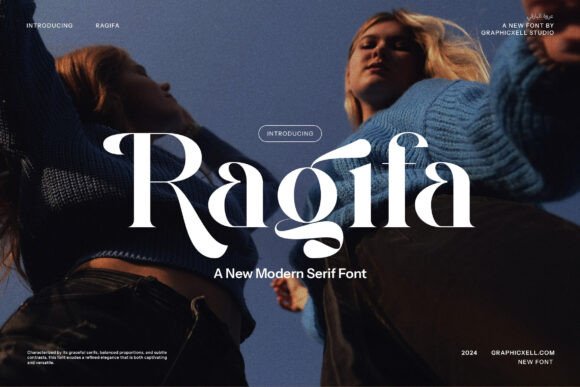
How Ragifa Helped My Bakery Look More Professional
Running a small bakery has always been about more than just baking great bread and pastries. It’s also about creating an experience that customers remember. A few months ago, I decided it was time to refresh our brand visuals. Our packaging had been the same for years, and while our products were delicious, the design felt outdated. That’s when I discovered Ragifa.
Ragifa is a modern serif typeface with a sophisticated and charming personality. Its delicate curves give it an elegant style that feels both timeless and contemporary. As someone who values consistency in branding, I knew that choosing the right font could make a big difference in how our business is perceived.
A Simple Change, Big Impact
I started by updating our product labels. Before using Ragifa, we used a basic sans serif font that looked clean but lacked character. While functional, it didn’t stand out. With Ragifa, I immediately noticed how much more refined our packaging looked. The font added a touch of elegance that matched the quality of our baked goods.
The first test was on our signature cinnamon roll box. I replaced the old label with one that featured Ragifa in the title. The result was surprising. Customers commented on how much more “special” the box looked. It wasn’t just the color or the design—it was the font that made them feel like they were getting something unique and well-crafted.
Using Ragifa in Different Branding Elements
Ragifa isn’t just for labels. I’ve since used it across multiple branding elements. For our website banners, I paired it with a clean sans serif font to create a balanced look. On social media, I used it for headlines and short phrases, which helped our content feel more professional and trustworthy.
We also applied it to our thank-you cards and business cards. The font’s charm and sophistication made these small touches feel intentional and high-quality. It’s amazing how something as simple as a font can elevate the overall brand experience.
Typography That Speaks Volumes
Typography plays a huge role in first impressions. When customers see our packaging, they’re not just seeing a product—they’re seeing a brand. Ragifa helps us communicate that message clearly and effectively. Its readability is excellent, even at smaller sizes, which is perfect for things like menu items and product tags.
One of the best things about Ragifa is its versatility. It works well for headlines, logos, packaging titles, and even decorative accents. I’ve used it in different weights and styles to match the tone of each project. Whether it’s a bold headline for a new product launch or a subtle accent on a tag, Ragifa adapts beautifully.
Font Pairing Tips for Better Design
If you’re considering using Ragifa, I recommend pairing it with a clean sans serif font for contrast. This combination creates a balance between elegance and readability. For example, I paired it with Montserrat for our website and Instagram templates. The result was a modern yet refined look that felt cohesive across all platforms.
For packaging, I often use a simple sans serif font for body text and let Ragifa take center stage in the title. This approach keeps the design clean while still making a visual impact. It’s also important to consider how the font looks on different mediums—whether it’s printed packaging, digital ads, or social media graphics.
Readability Matters
When designing for small labels or mobile screens, readability is key. I’ve found that Ragifa performs well even at smaller sizes, as long as it’s used appropriately. For example, I use it for titles and headers, but switch to a simpler font for body text. This ensures that the information is easy to read without overwhelming the viewer.
Another thing to keep in mind is how the font looks on different backgrounds. Lighter colors work best with darker text, and vice versa. Testing the font in various contexts helps ensure it remains legible and visually appealing across all materials.
Choosing the Right Font for Your Business
As a small business owner, I know how important it is to choose fonts that reflect your brand’s personality. Ragifa has become a staple in my design toolkit because it offers both style and functionality. It’s not just a pretty font—it’s a tool that helps build trust, consistency, and recognition.
Before using any font commercially, I always check the included styles, file formats, and licensing details. Ragifa comes with several weights and alternates, making it flexible for different design needs. It also supports multilingual characters, which is great if you’re targeting a global audience.
Whether you’re running a café, a boutique, or an online shop, the right font can make all the difference. Ragifa has helped me create a more polished and memorable brand, and I’m confident it can do the same for your business.